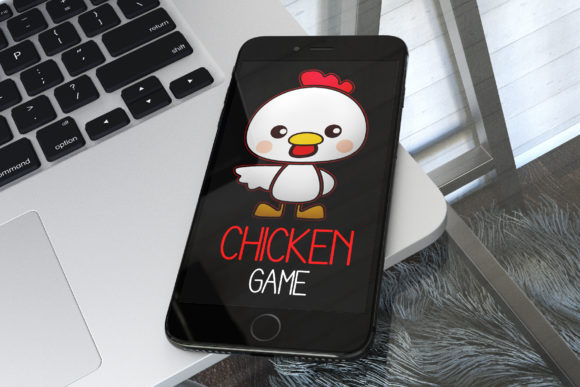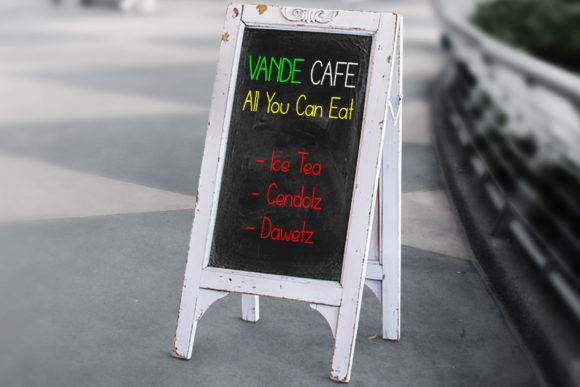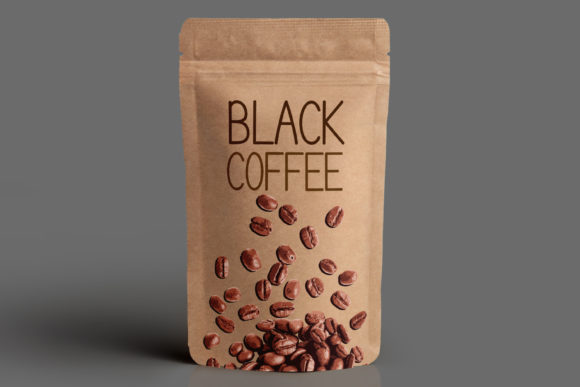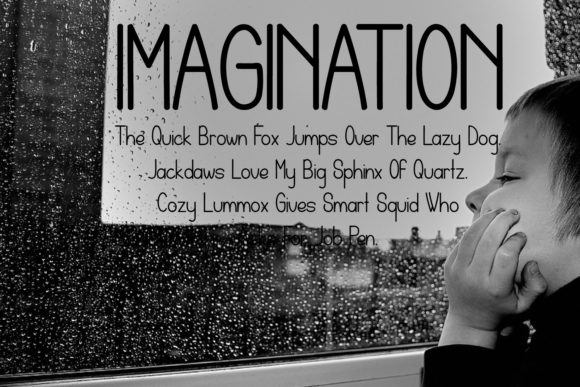
Introducing Coretz Font: The Ultimate Playful Handwritten Font for Designers and Crafters
Are you tired of using the same old fonts in your designs? Do you want to add a touch of playfulness and whimsy to your projects? Look no further than Coretz Font, a cute and fun handwritten font with a playful vibe that’s perfect for designers and crafters alike.
What is Coretz Font?
Coretz Font is a unique and charming handwritten font that’s designed to bring a smile to your face. With its playful and carefree style, it’s ideal for a wide range of design projects, from invitations and greeting cards to social media graphics and blog posts.
Coretz Font is a meticulously crafted font that features a distinctive, hand-drawn look with subtle imperfections and variations in letter size and spacing. This gives it a warm, organic feel that’s perfect for designs that need a personal touch.
Key Features of Coretz Font
- Playful and whimsical style: Coretz Font has a fun and carefree vibe that’s perfect for designs that need a playful touch.
- Handwritten look: With its subtle imperfections and variations in letter size and spacing, Coretz Font has a warm, organic feel that’s perfect for designs that need a personal touch.
- Highly versatile: Coretz Font is suitable for a wide range of design projects, from invitations and greeting cards to social media graphics and blog posts.
- Easy to read: Despite its playful style, Coretz Font is highly legible and easy to read, making it perfect for designs that need to communicate a message.
Who is Coretz Font for?
Coretz Font is perfect for designers and crafters who want to add a touch of playfulness and whimsy to their projects. It’s ideal for:
- Graphic designers: Coretz Font is perfect for graphic designers who want to create unique and eye-catching designs for their clients.
- Crafters: Coretz Font is ideal for crafters who want to add a personal touch to their handmade projects, such as cards, invitations, and scrapbook pages.
- Social media influencers: Coretz Font is perfect for social media influencers who want to add a playful touch to their social media graphics and blog posts.
How to Use Coretz Font
Coretz Font is easy to use and can be incorporated into a wide range of design projects. Here are a few ideas to get you started:
- Invitations and greeting cards: Use Coretz Font to create unique and eye-catching invitations and greeting cards for special occasions.
- Social media graphics: Use Coretz Font to add a playful touch to your social media graphics and blog posts.
- Scrapbook pages: Use Coretz Font to add a personal touch to your scrapbook pages and handmade projects.
Why Choose Coretz Font?
There are many fonts available that claim to be playful and whimsical, but Coretz Font stands out from the crowd. Here are a few reasons why:
- Unique and distinctive style: Coretz Font has a unique and distinctive style that’s unlike any other font on the market.
- High-quality design: Coretz Font is meticulously crafted with attention to detail, ensuring a high-quality design that’s perfect for professional projects.
- Easy to use: Coretz Font is easy to use and can be incorporated into a wide range of design projects.
Coretz Font is a cute and fun handwritten font with a playful vibe that’s perfect for designers and crafters alike. With its unique and distinctive style, high-quality design, and ease of use, it’s an excellent choice for a wide range of design projects. Whether you’re looking to add a touch of playfulness to your designs or simply want to try something new, Coretz Font is a great option to consider.